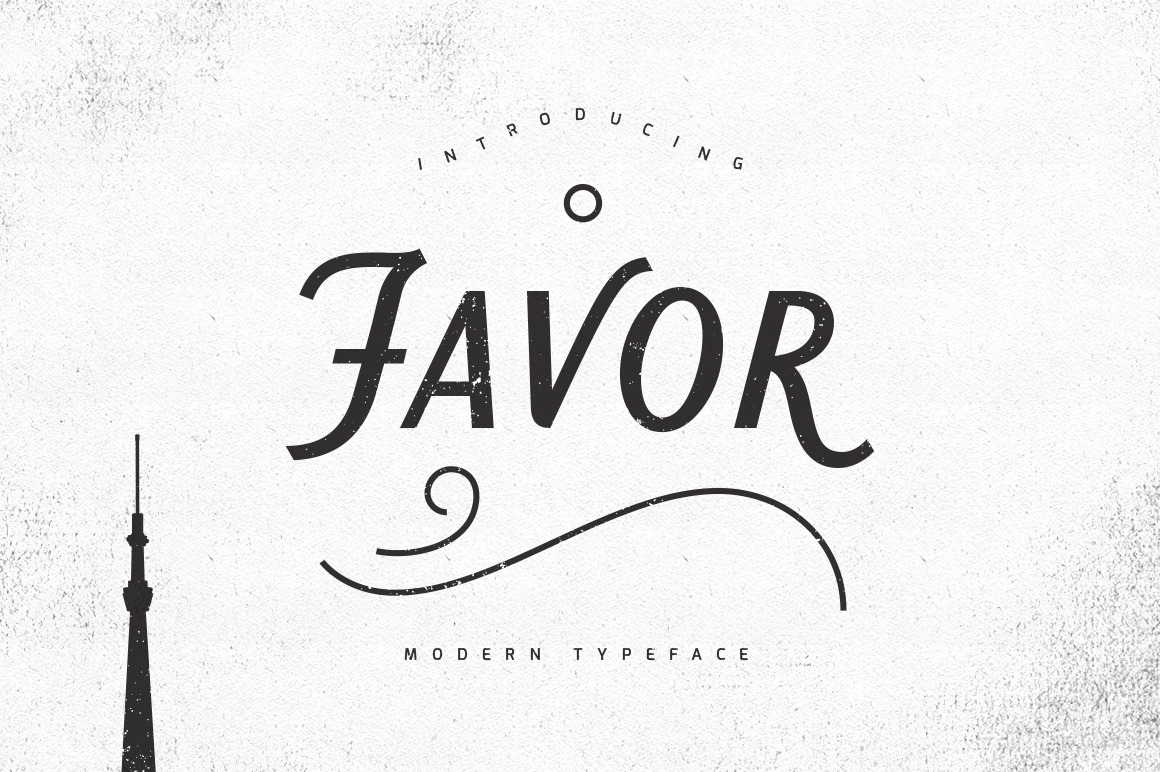
Favor Typeface
INTRODUCING
Favor is modern typeface. The inspired from the combination of modern and vintage style. This font have 2 version regular and rough. Also many ormanent and ribbon to support for design. The font have standard ligatures and stylistic alternates so you can be manual setting letter by letter what you want. So this works well on short words or logos of brands is good for t-shirts, logos, labels, posters and etc. Can also write a sentence to create content design more attractive, stylish and modern.
Featured Favor :
- Discretionary Ligatures